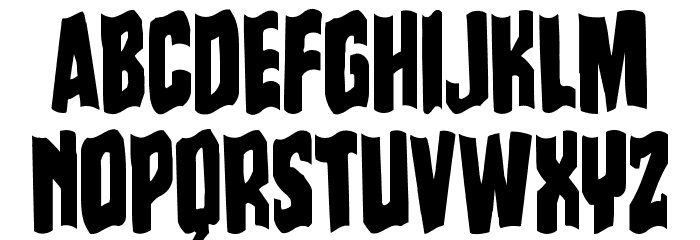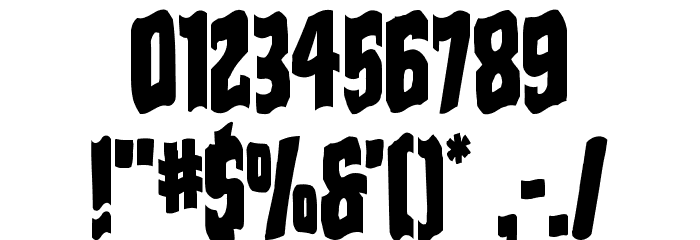
Dorian Gore Wavy 2 Font
This font features a bold and wavy design, with each character exhibiting a playful and dynamic form. The letters have a strong presence, with thick strokes and a slightly irregular outline that gives them a hand-drawn appearance. The uppercase and lowercase letters maintain a consistent style, while the numbers and special characters integrate seamlessly into the overall design. The font's unique style makes it stand out, offering a creative and artistic vibe.
A bold, wavy font with a playful, hand-drawn appearance.
- Font: Dorian Gore Wavy 2
- Proposed Projects: Ideal for posters, album covers, branding projects, and any design requiring a bold, artistic touch.